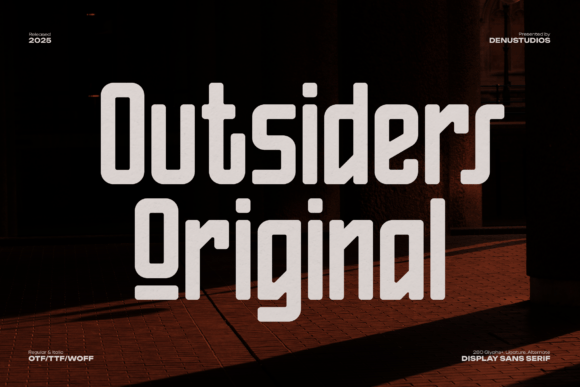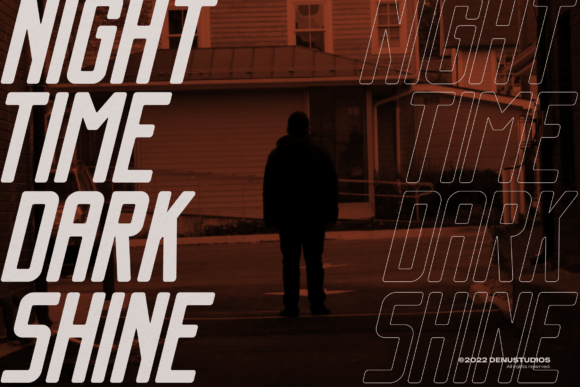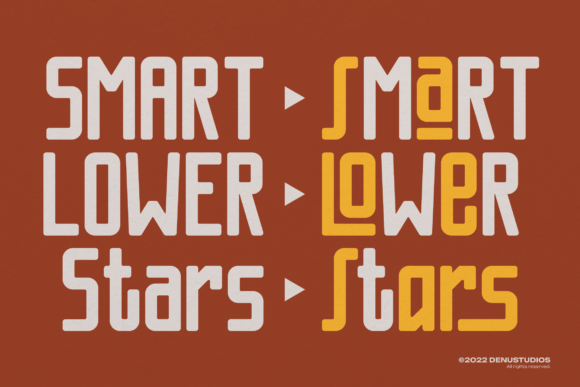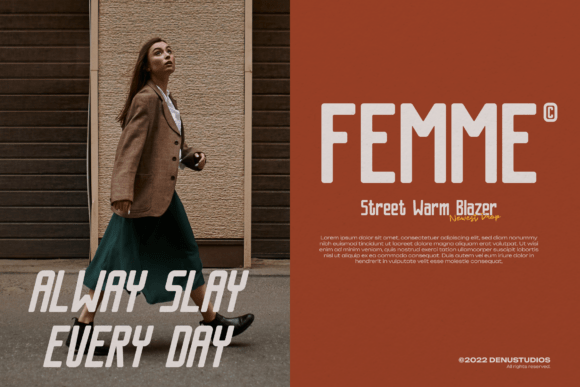
Outsiders Original Font
About the Outsiders Original Font
The Outsiders Original Font offers a perfect balance of form and function for your design needs. Outsiders Original is a modern display sans serif with a bold geometric backbone and unique character cuts. Featuring sharp angles, modular curves, and powerful vertical rhythm, this font is built for striking headlines, branding, editorial layouts, and digital interfaces. With over 280 glyphs, ligatures, and alternate characters, it brings a strong and contemporary voice to any design.
Its bold geometric structure makes Outsiders Original ideal for impactful headlines, logos, and short-form text in branding applications. It also excels in posters and packaging where a strong visual presence is key. However, its sharp angles and condensed forms make it less suitable for body text or lengthy paragraphs, and its assertive personality might clash with delicate or overly minimalist designs. Avoid using it in user interfaces where readability is paramount.
For optimal visual balance, pair Outsiders Original with a complementary sans-serif like Lato for body copy, or a warmer serif such as Playfair Display for a more classic contrast. A handwritten script font like Great Vibes can add a touch of personality to projects needing a balance of modern and organic elements.
The font’s overall personality is confident and modern, lending itself to brands projecting strength, innovation, or a rebellious spirit. It’s a powerful tool for conveying authority and sophistication.